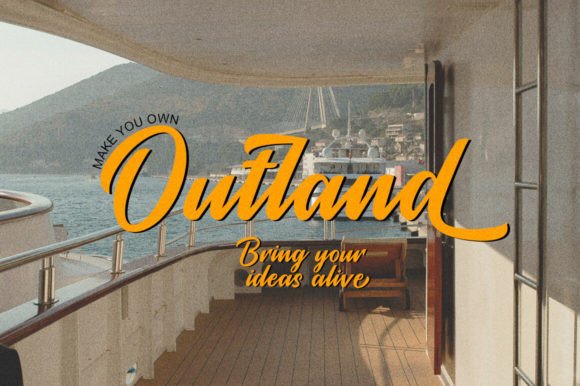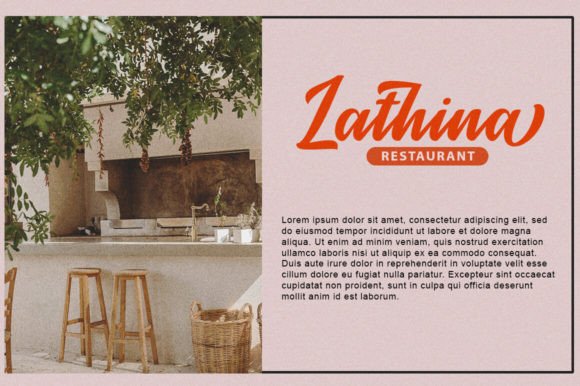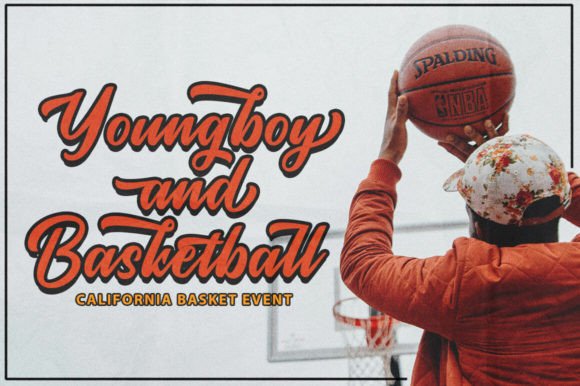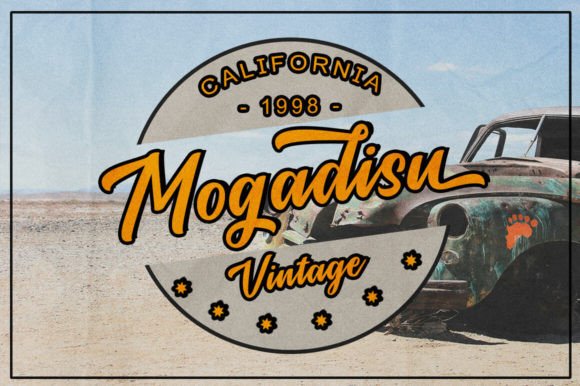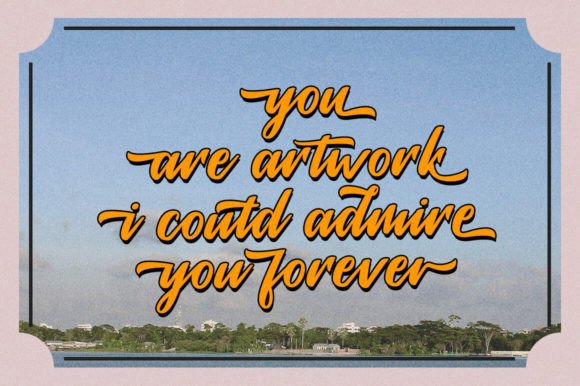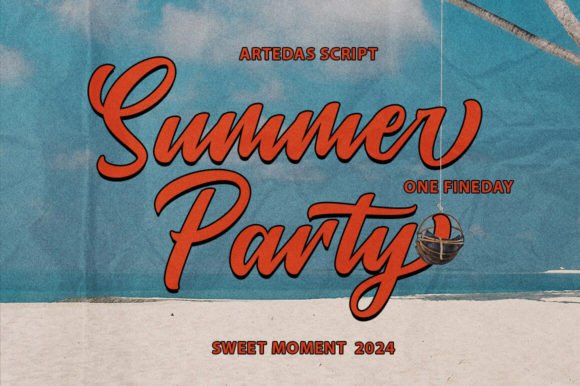
Introducing Artedas Font: The Perfect Blend of Elegance and Modernity
In the world of graphic design, a font can make all the difference in creating a lasting impression. For designers and crafters looking for a versatile and stylish font, Artedas is an excellent choice. This modern font combines elegant and contemporary elements, making it perfect for a wide range of design projects.
The Artedas Advantage: Smooth Lines and Sleek Design
Artedas boasts smooth lines and a sleek design that sets it apart from other fonts. Its high clarity and readability make it an ideal choice for text that needs to stand out. Whether you’re creating a logo, poster, or social media content, Artedas provides a professional and clean touch that elevates your design.
Key Features of Artedas Font
- Elegant and Contemporary Elements: Artedas seamlessly blends traditional elegance with modern flair, making it suitable for a wide range of design projects.
- Smooth Lines and Sleek Design: The font’s smooth lines and sleek design ensure high clarity and readability, making it perfect for use in various design applications.
- Minimalist Style: Artedas’ minimalist style provides a professional and clean touch, making it ideal for designers looking for a versatile font.
- Aesthetic Details: The font’s aesthetic details ensure it remains attractive and engaging, perfect for designers who want to create a lasting impression.
Artedas is a versatile font that can be used in a variety of design projects, including:
- Logos: Create a professional and memorable logo with Artedas’ sleek and modern design.
- Posters: Use Artedas to create eye-catching posters that grab attention and communicate your message effectively.
- Social Media: Elevate your social media content with Artedas’ clean and professional touch.
Why Choose Artedas Font?
With so many fonts available, why choose Artedas? Here are a few reasons why designers and crafters love Artedas:
- Unique Blend of Elegance and Modernity: Artedas offers a unique blend of traditional elegance and modern flair, making it stand out from other fonts.
- High Readability: The font’s high clarity and readability make it perfect for use in various design applications.
- Versatility: Artedas is a versatile font that can be used in a wide range of design projects, from logos and posters to social media content.
Tips for Using Artedas Font
To get the most out of Artedas, here are a few tips:
- Experiment with Different Sizes: Artedas looks great in various sizes, from small captions to large headings.
- Pair with Other Fonts: Try pairing Artedas with other fonts to create a unique and visually appealing design.
- Use in Combination with Images: Artedas looks great when used in combination with images, making it perfect for creating stunning visual content.
Artedas is a modern font that combines elegant and contemporary elements, making it perfect for designers and crafters looking for a versatile and stylish font. With its smooth lines, sleek design, and high readability, Artedas is ideal for use in various graphic design projects. Whether you’re creating a logo, poster, or social media content, Artedas provides a professional and clean touch that elevates your design.
Get Ready to Elevate Your Design with Artedas Font